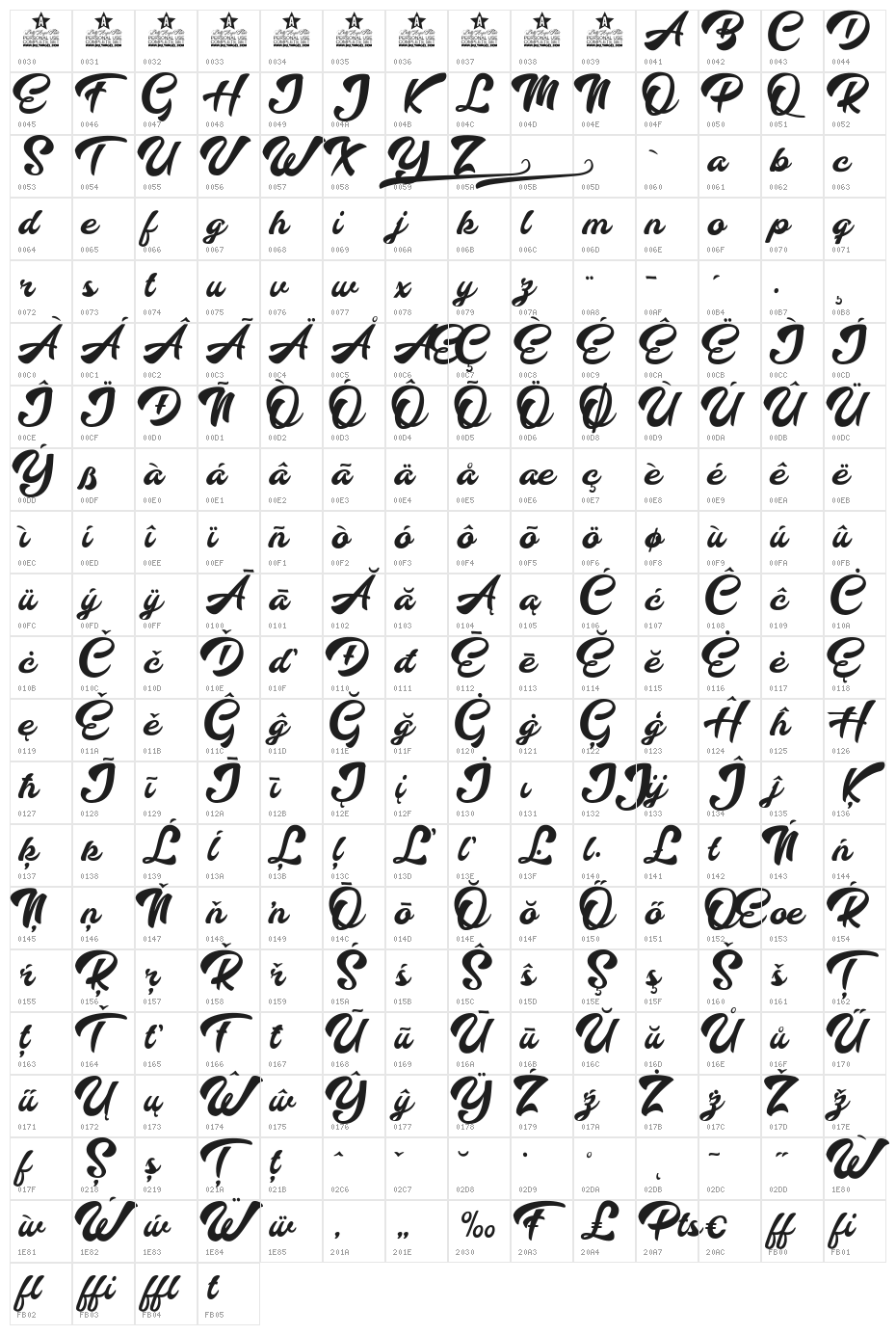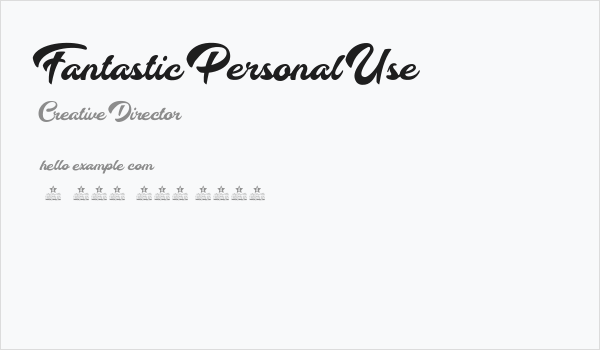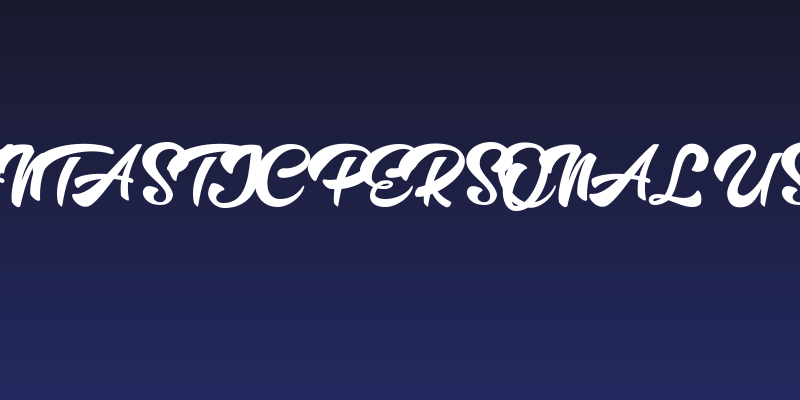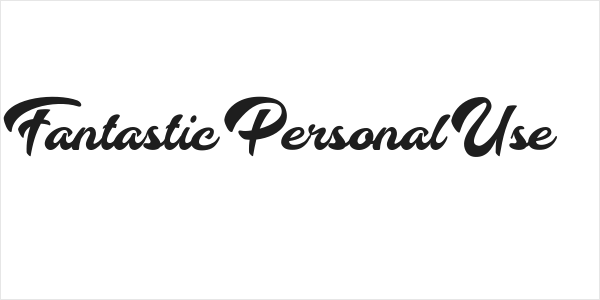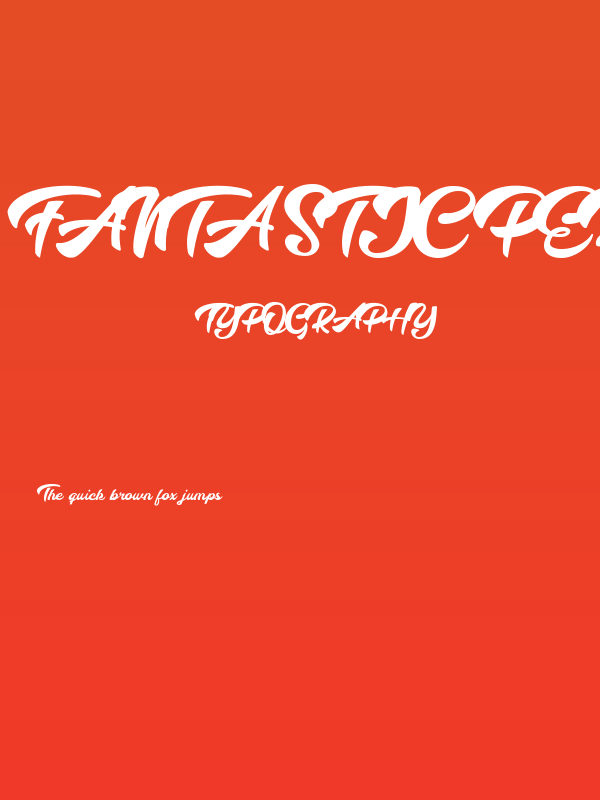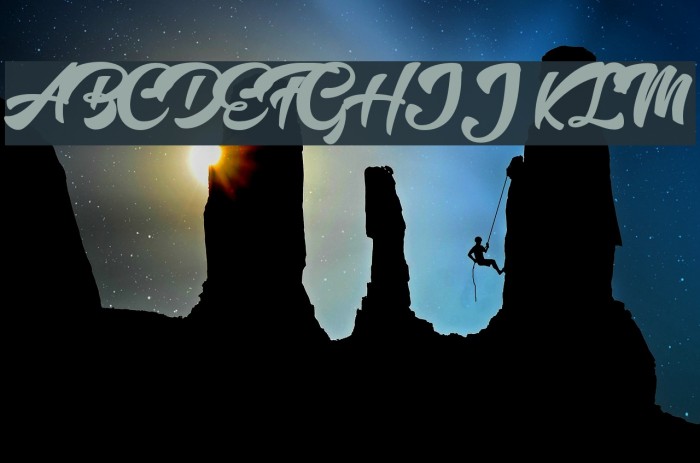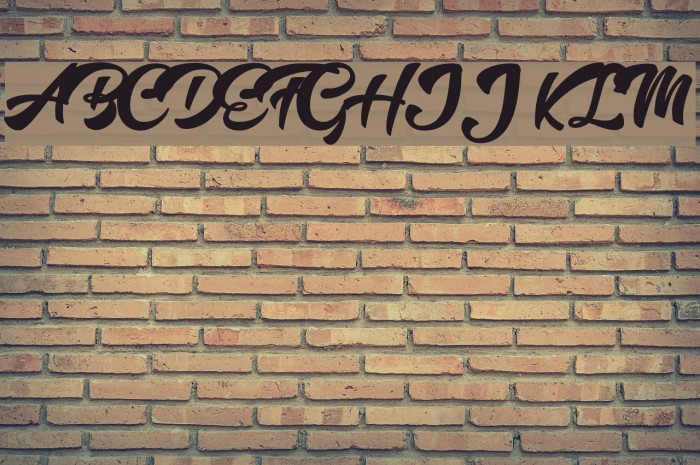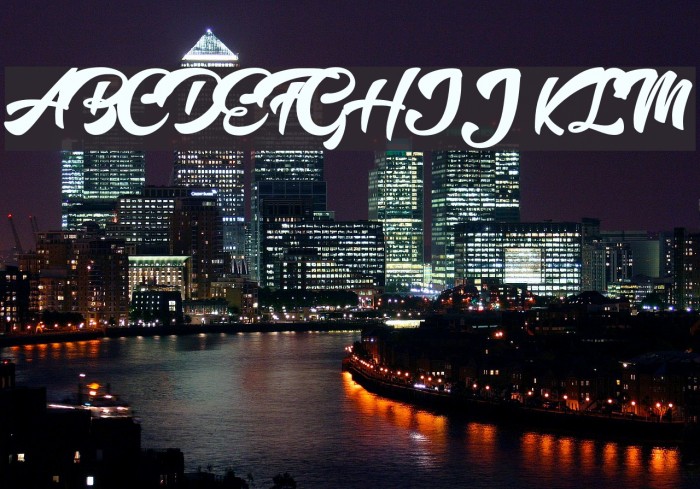
Fantastic Personal Use Font
Fantastic Personal Use Description
This font features a bold, cursive style with a flowing, handwritten appearance. The letters are connected, creating a seamless and elegant look. The uppercase letters are slightly more elaborate, with flourishes that add a touch of sophistication. The lowercase letters maintain a consistent flow, enhancing readability while retaining a stylish flair. The numbers and special characters are designed to match the overall aesthetic, ensuring a cohesive look across all text elements. This font's dynamic and expressive nature makes it suitable for creative and artistic projects.
| Proposed Projects | Ideal for invitations, greeting cards, branding, and artistic designs. |